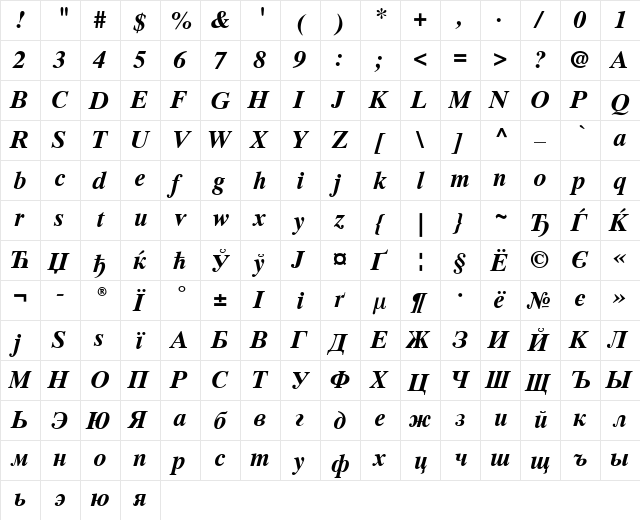
Times Ten Cyr Upright Bold Italic Font Preview
Times Ten Cyr Upright Bold Italic
Design Context for Times Ten Cyr Upright Typeface
Times Ten Cyr Upright is a composed and adaptable typeface that performs quietly and consistently across a wide range of design contexts. The slanted form adds forward momentum and visual energy. Its bold stroke weight gives it real presence on the page.
Pro Tip: Try Times Ten Cyr Upright for annotation and caption copy alongside an upright companion — the contrast in angle creates a dynamic but ordered typographic system.